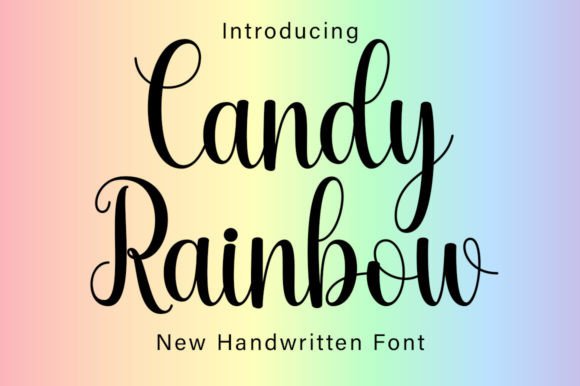
Dive into a world of enchantment and whimsy with Candy Rainbow Font, a captivating script typeface born from the creative mind of DN Creative. This enchanting font is crafted to add a touch of magic to all your design endeavors.
With its delightful handwritten style, Candy Rainbow is the perfect choice for a wide range of projects, from whimsical wall displays to elegant wedding invitations. Its charming personality shines through in social media posts, logos, advertisements, and product packaging, adding a touch of playfulness and cheer.
Whether you're creating labels, photography watermarks, or personalized stationery, Candy Rainbow's versatility knows no bounds. Its enchanting curves and playful ligatures lend a touch of sophistication to any project, making it a must-have for designers seeking a unique and captivating font.
Unlock the full potential of Candy Rainbow with its PUA encoding, granting you effortless access to a treasure trove of glyphs and ligatures. Unleash your creativity and let the magic of Candy Rainbow transform your designs into captivating works of art.
Indulge in the charm of Candy Rainbow Font and let your imagination soar. Experience the joy of creating designs that spark delight and ignite smiles. Your projects will radiate with a captivating allure that leaves a lasting impression.